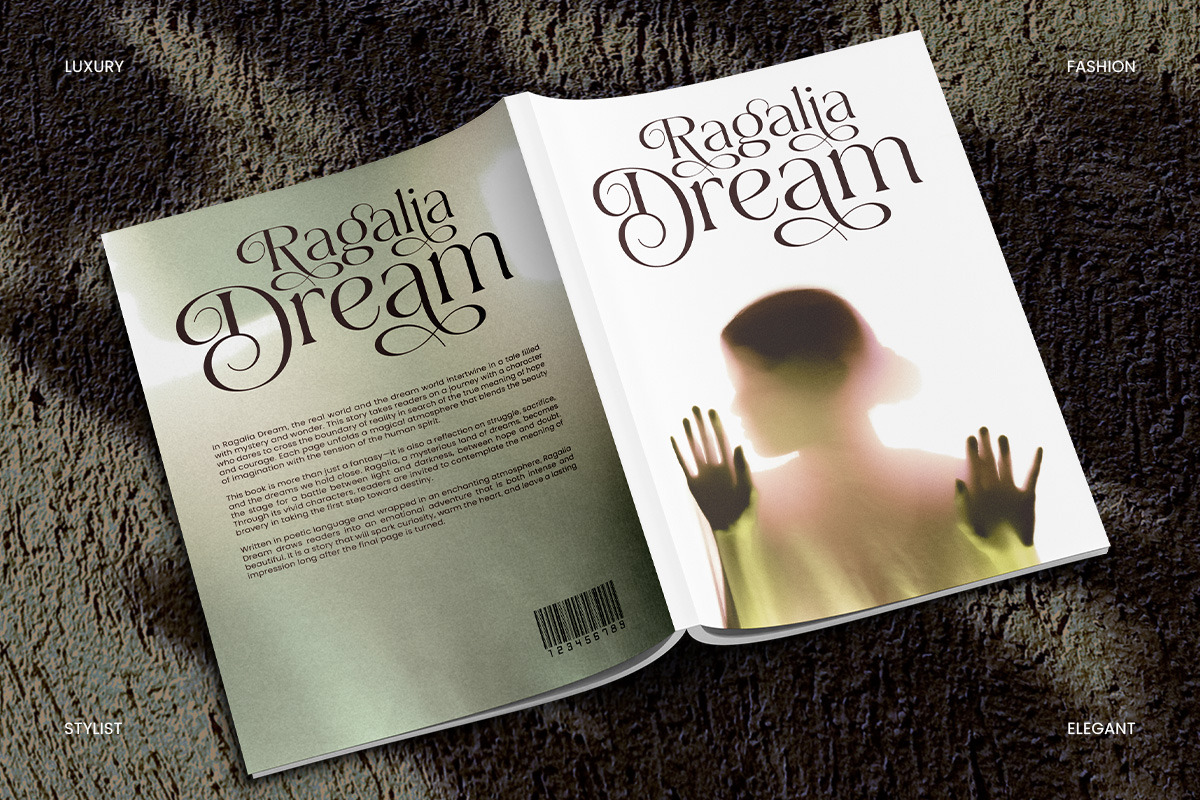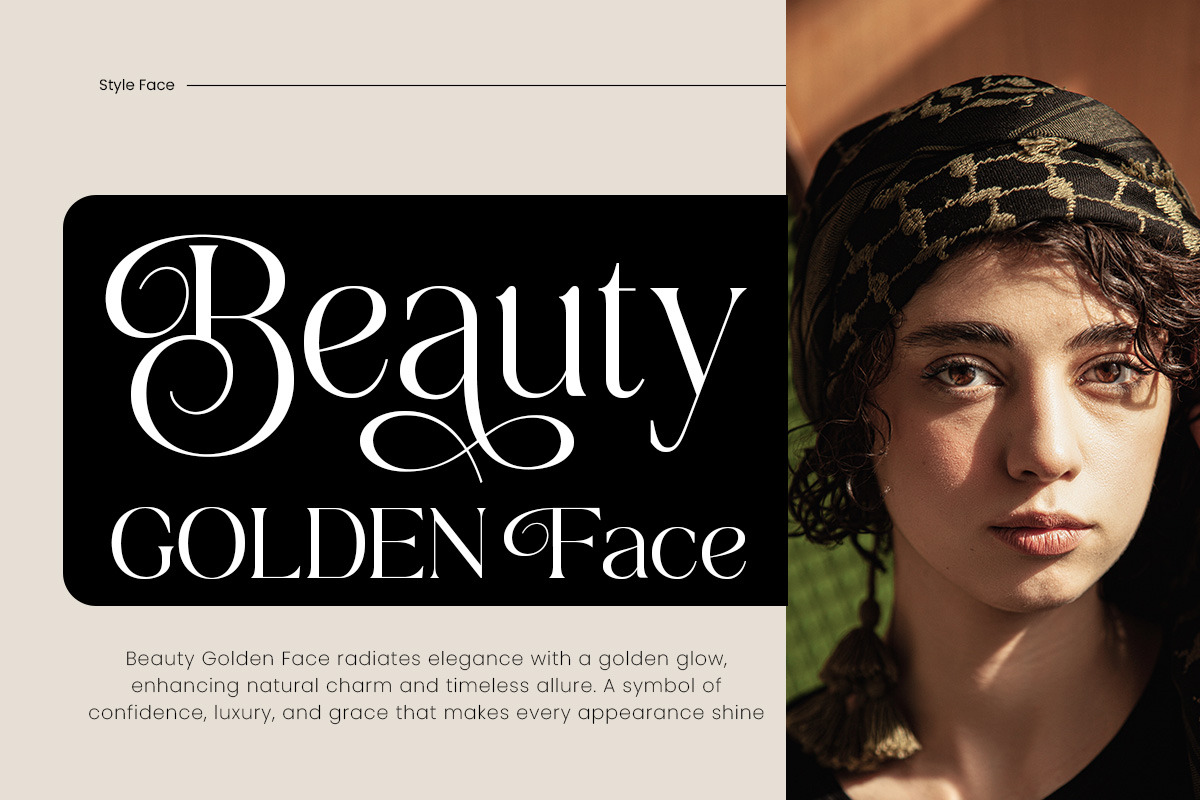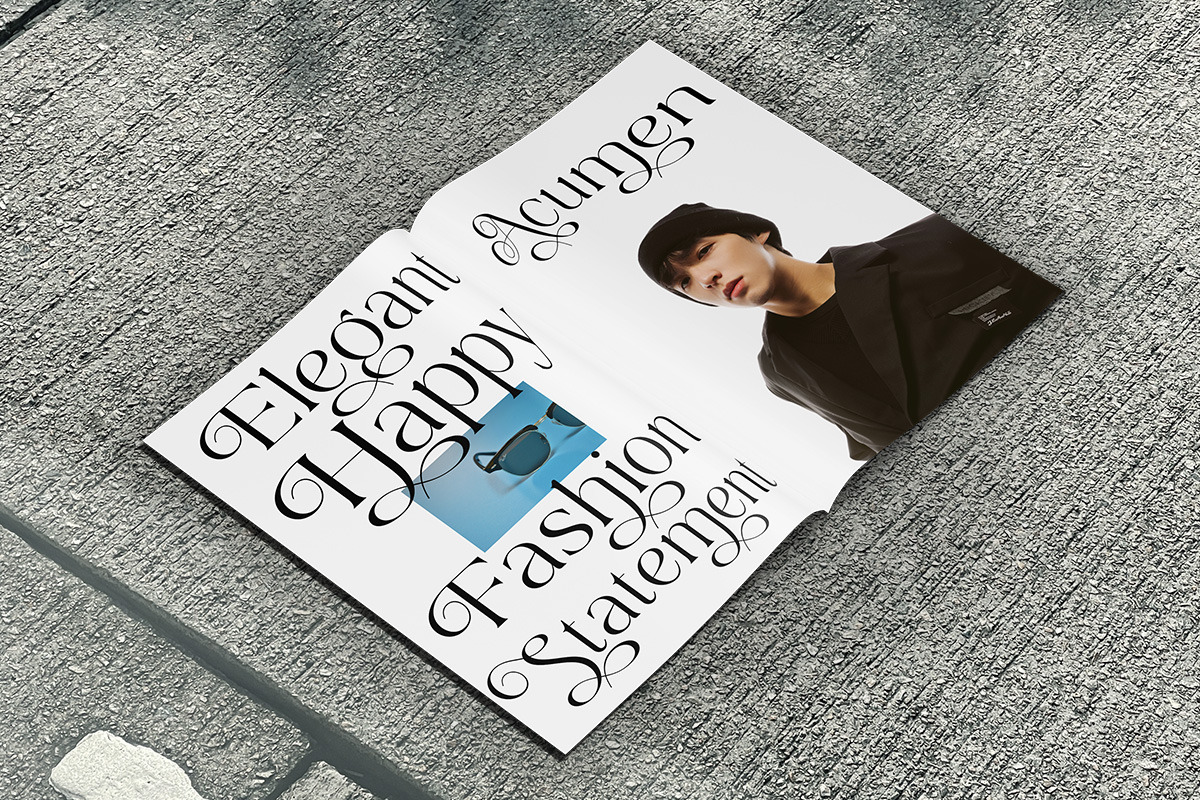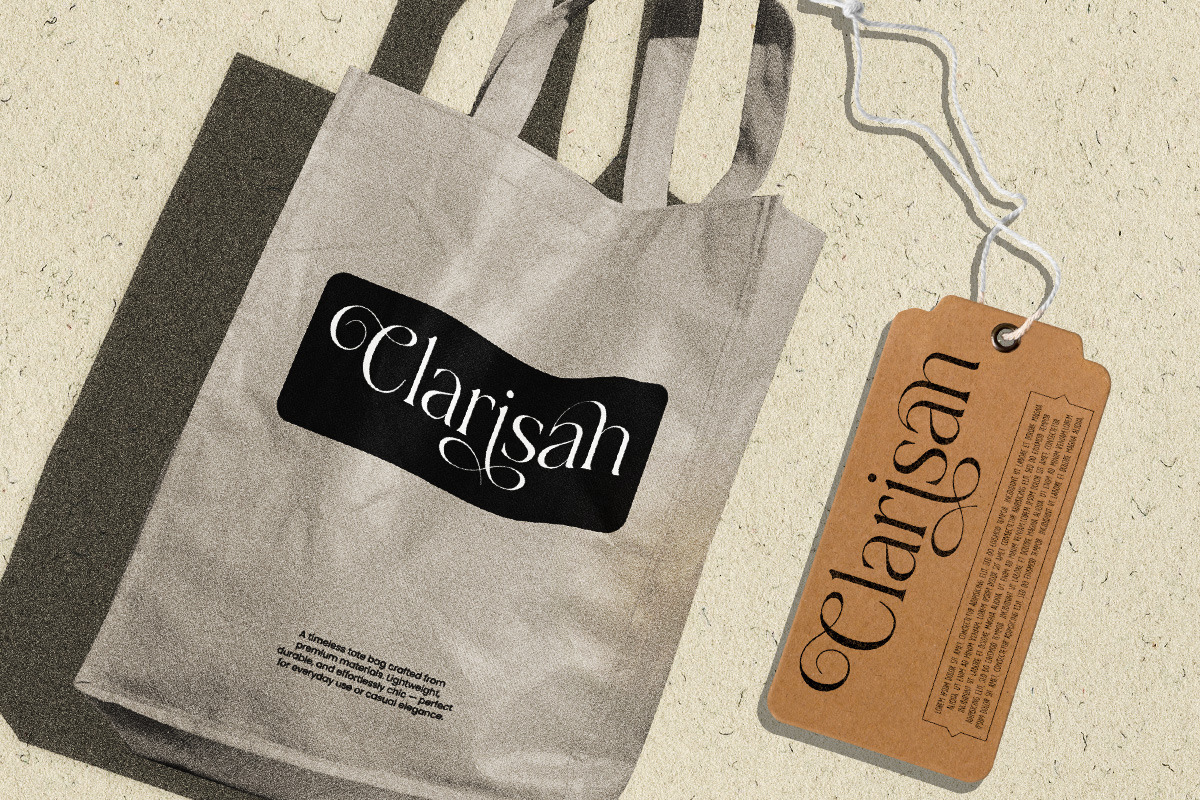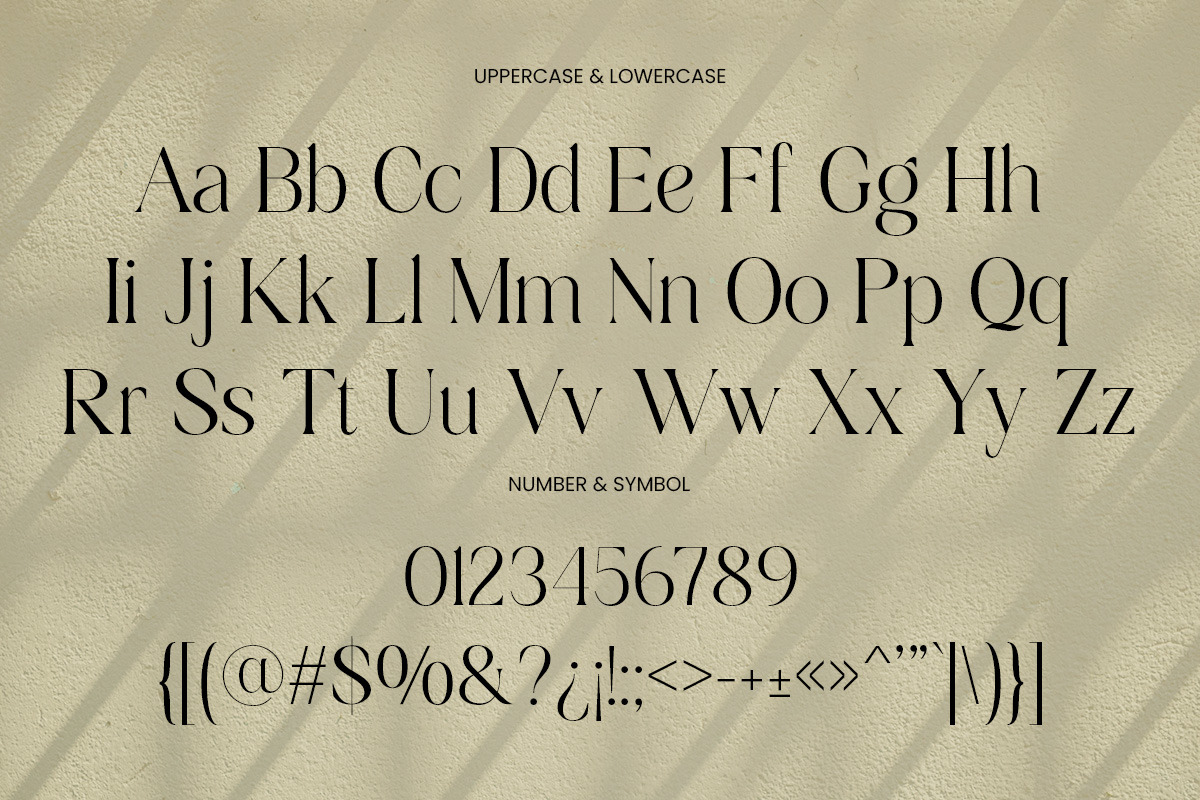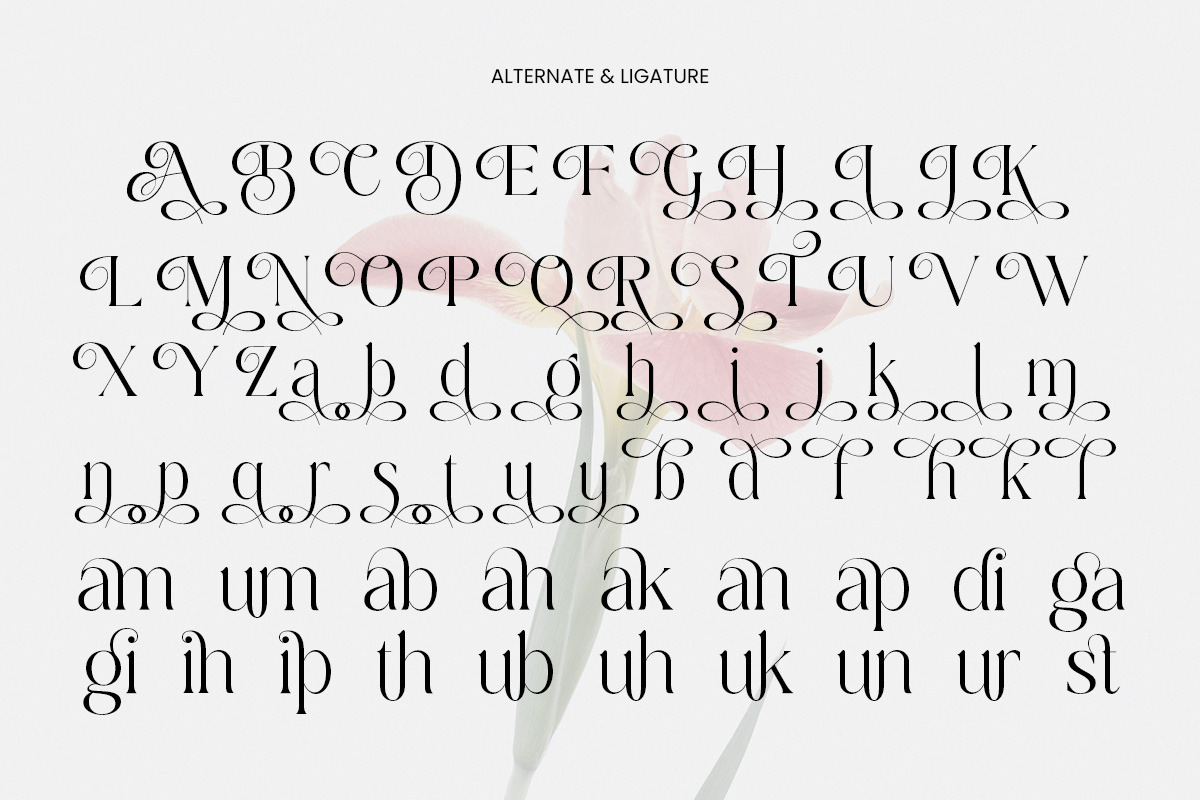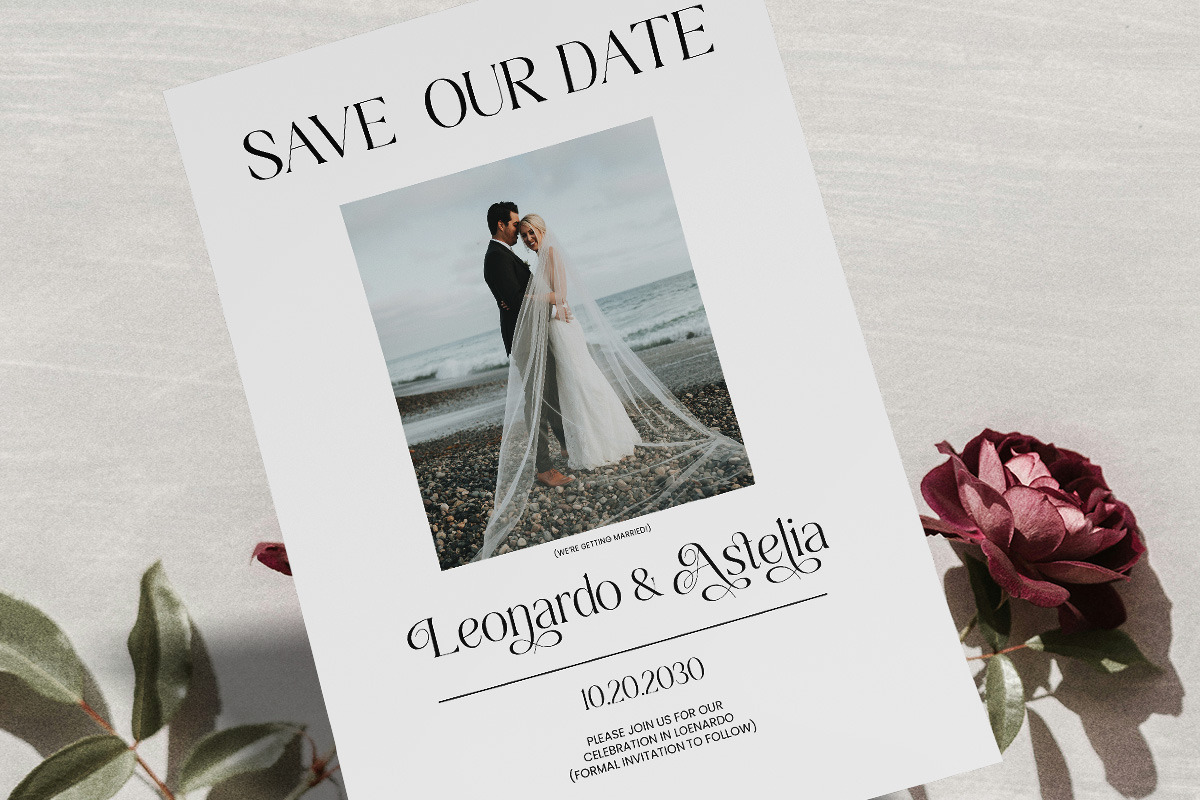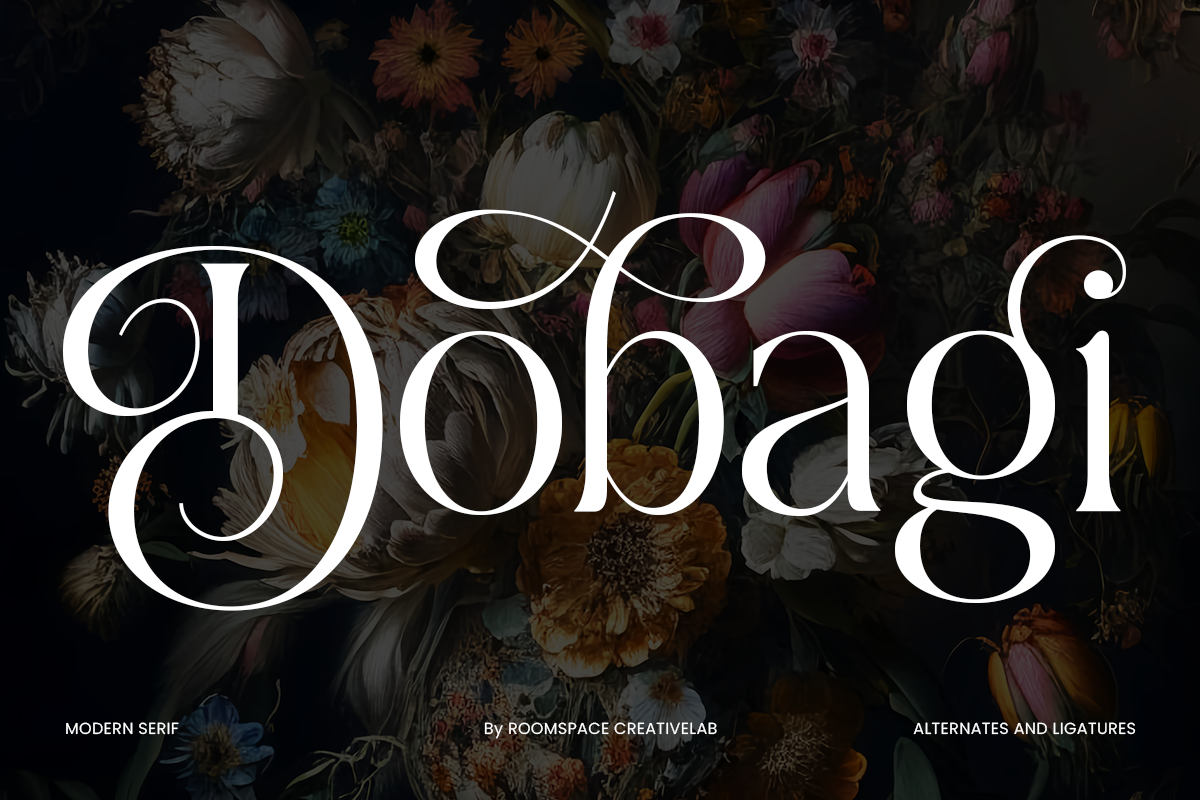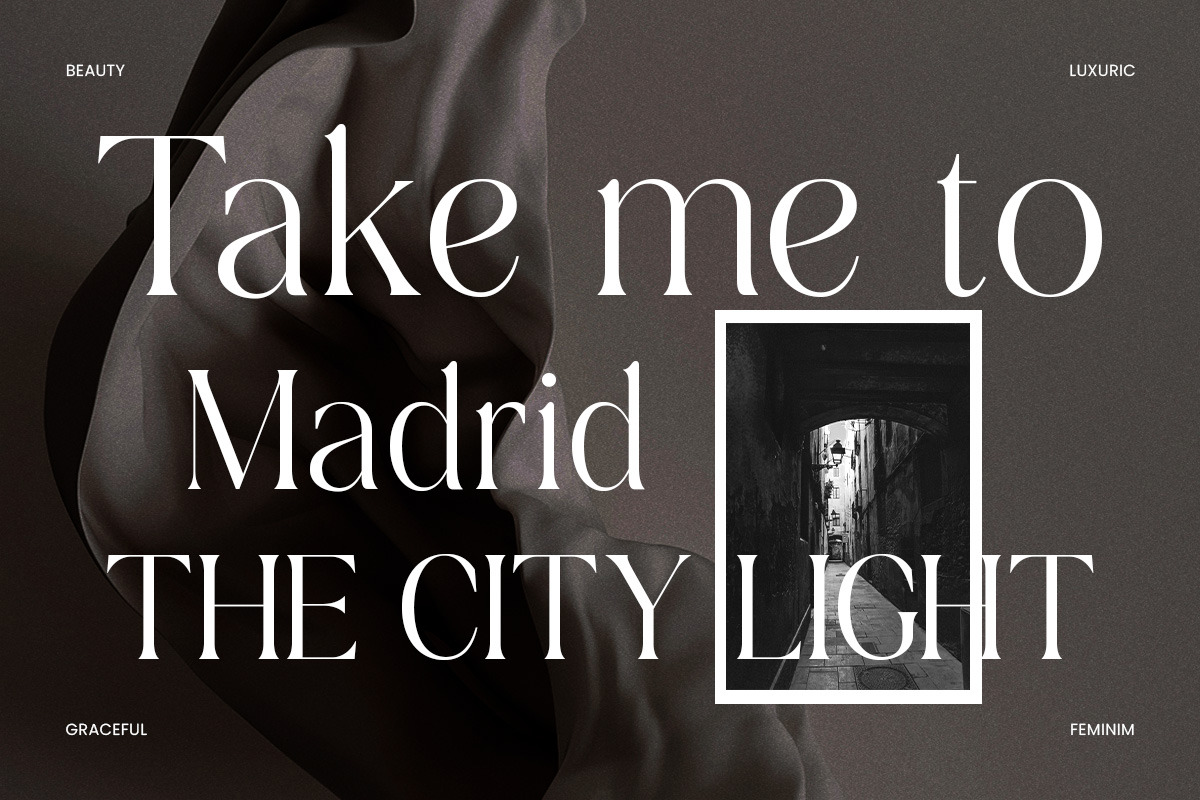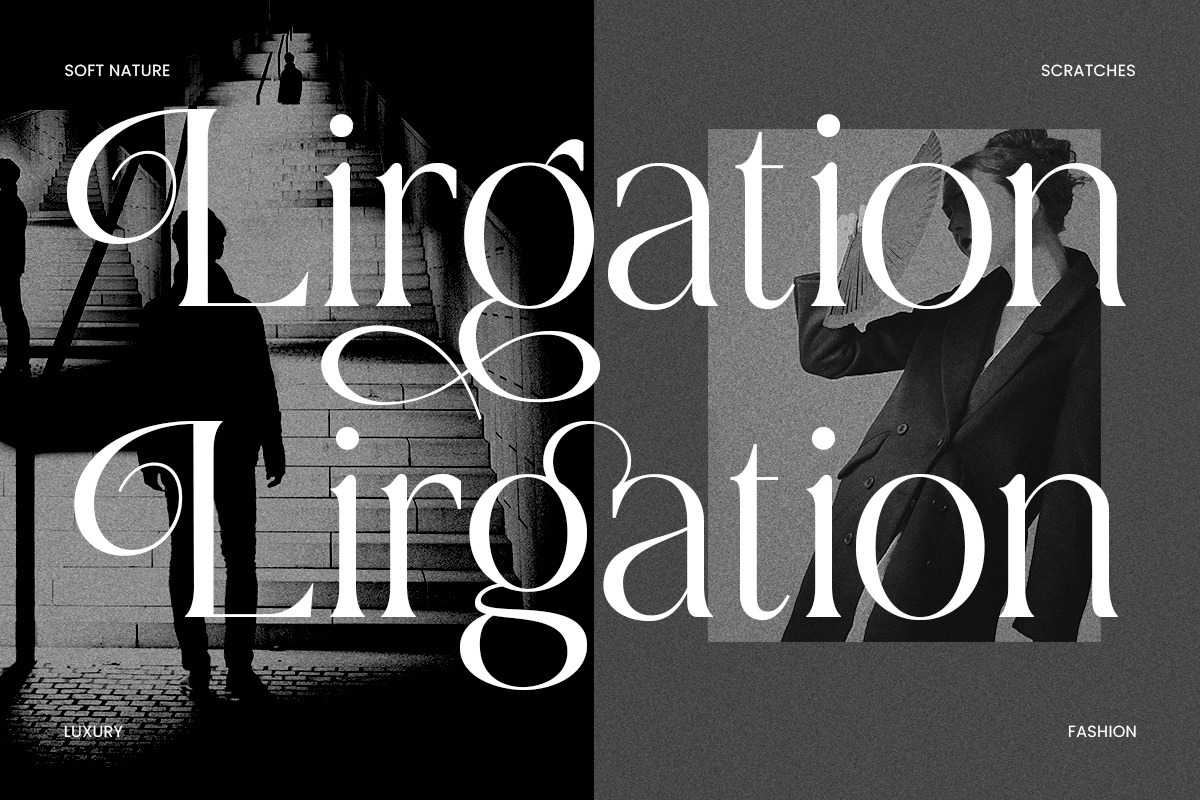
Dobagi – Elegant Modern Serif Font
Dobagi is a modern serif font that combines luxury, elegance, and timeless style with refined curves and bold details. Featuring stylish alternates, smooth ligatures, and perfect kerning, it’s highly versatile and ideal for logo design, branding, packaging, invitations, editorial layouts, and wedding projects. Perfect for both digital and print, Dobagi adds sophistication and a high-end look to every design.